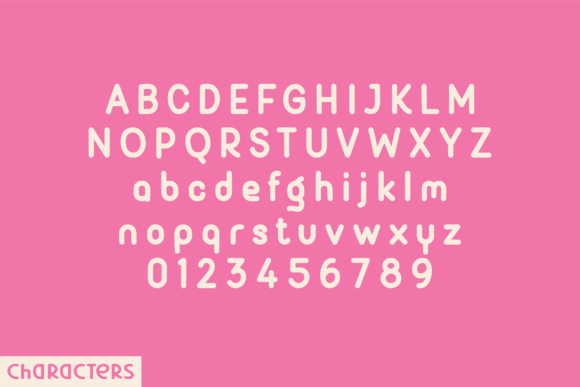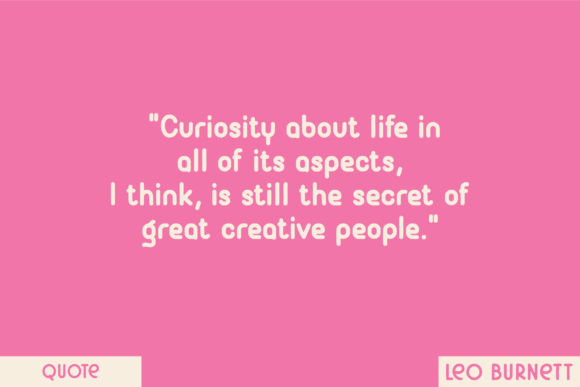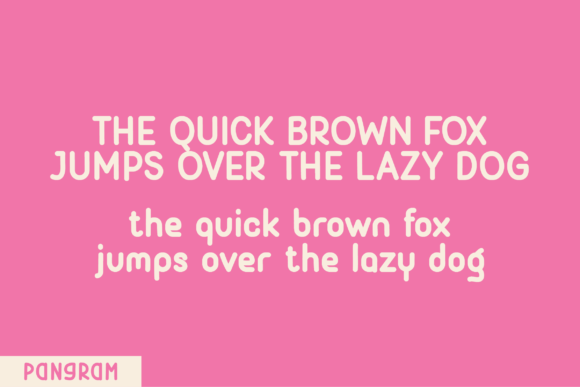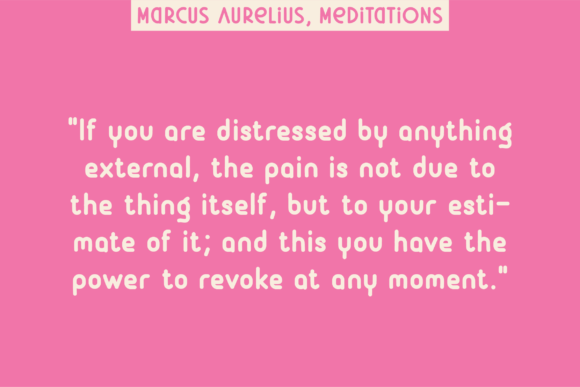
Cotton Candy Font: A Sweet Addition to Your Design Collection
Are you a designer or crafter looking for a unique and bold font to add a touch of classic charm to your designs? Look no further than the Cotton Candy font! This sans serif font is perfect for quotes, notes, tees, logos, social media, and any design that requires a vintage flair. In this article, we’ll dive into the world of Cotton Candy font, exploring its features, uses, and benefits.
What is Cotton Candy Font?
Cotton Candy font is a bold and eye-catching sans serif font that is reminiscent of the classic carnival treat. Its unique design makes it stand out from other fonts, adding a touch of whimsy and fun to any design. The font is perfect for creating eye-catching headlines, titles, and quotes that are sure to grab attention.
Features of Cotton Candy Font
- Bold and Unique: Cotton Candy font is a bold and unique sans serif font that is sure to make your designs stand out.
- Classic Touch: The font has a classic touch that makes it perfect for designs that require a vintage flair.
- Versatile: Cotton Candy font can be used for a wide range of designs, including quotes, notes, tees, logos, social media, and more.
- Easily Readable: The font is easy to read, making it perfect for designs that require a clear and concise message.
Uses of Cotton Candy Font
Cotton Candy font is a versatile font that can be used for a wide range of designs. Here are some of the most popular uses of the font:
- Quotes and Notes: Use Cotton Candy font to create eye-catching quotes and notes that are sure to inspire and motivate.
- T-Shirts and Merchandise: The font is perfect for creating custom t-shirts, hoodies, and other merchandise that require a bold and eye-catching design.
- Logos and Branding: Cotton Candy font can be used to create unique and memorable logos and branding materials that are sure to stand out.
- Social Media: Use the font to create eye-catching social media posts that are sure to grab attention and drive engagement.
Benefits of Using Cotton Candy Font
There are many benefits to using Cotton Candy font in your designs. Here are some of the most significant advantages:
- Unique and Memorable: The font is unique and memorable, making it perfect for designs that require a bold and eye-catching look.
- Easy to Read: Cotton Candy font is easy to read, making it perfect for designs that require a clear and concise message.
- Versatile: The font can be used for a wide range of designs, making it a great addition to any design collection.
Tips for Using Cotton Candy Font
Here are some tips for using Cotton Candy font in your designs:
- Use it Sparingly: While Cotton Candy font is bold and eye-catching, it can be overwhelming if used too much. Use it sparingly to create emphasis and draw attention.
- Pair it with Other Fonts: Cotton Candy font pairs well with other fonts, such as serif fonts or script fonts. Experiment with different pairings to find the perfect combination for your design.
- Experiment with Colors: The font looks great in a variety of colors, from bright and bold to pastel and soft. Experiment with different colors to find the perfect look for your design.